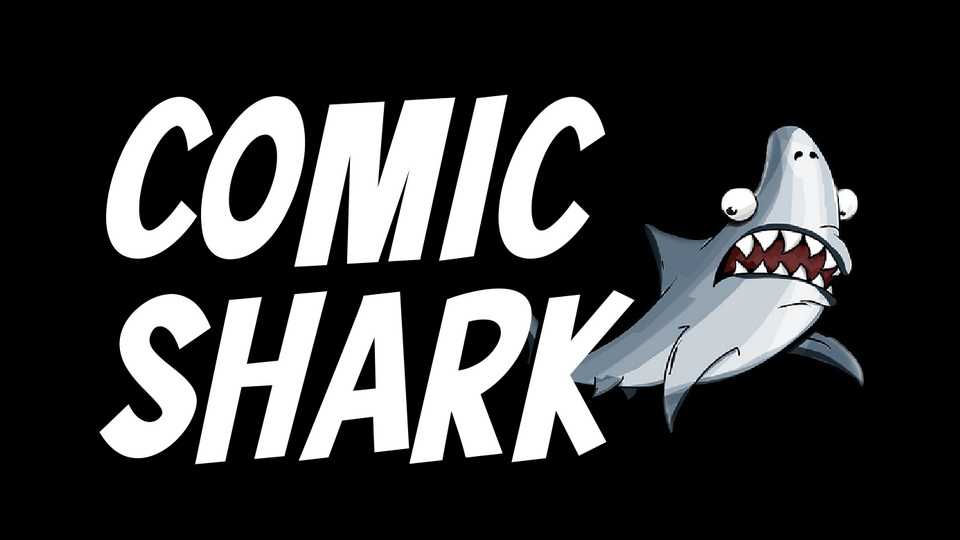
Download Comic Shark font, a bold cartoon typeface perfect for any fun quirky design work! Comic Shark can be used for anything such as t-shirt designs, greeting cards, invitations, mugs and more.